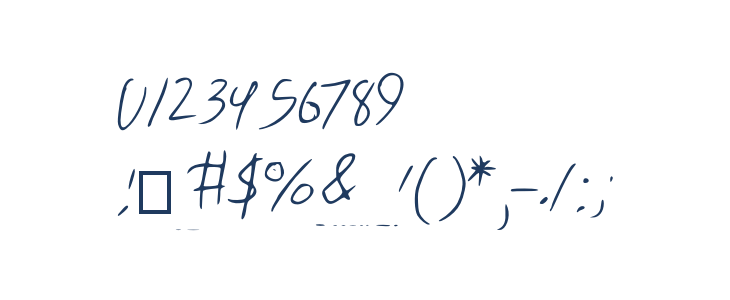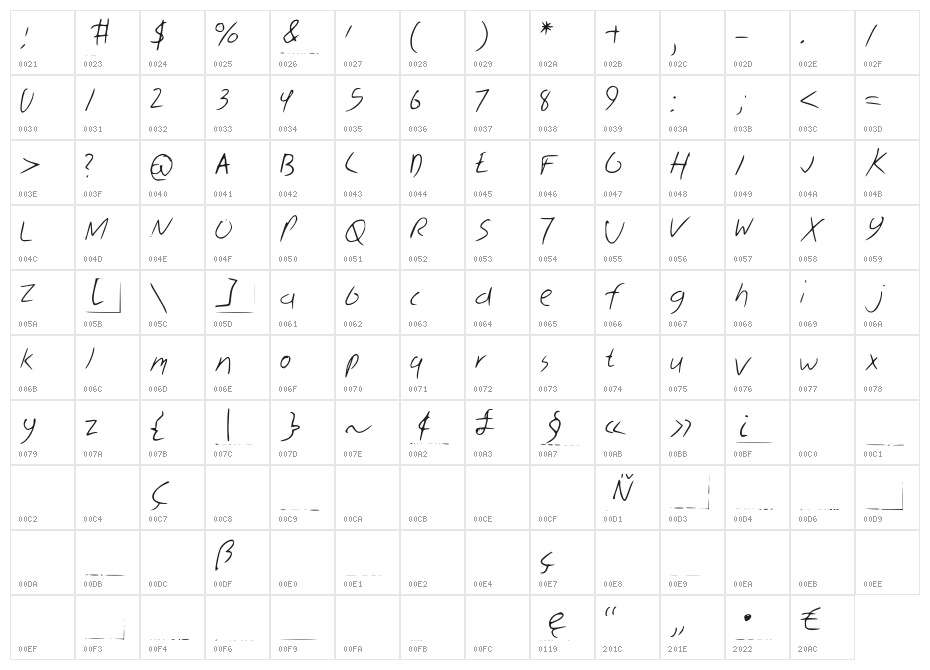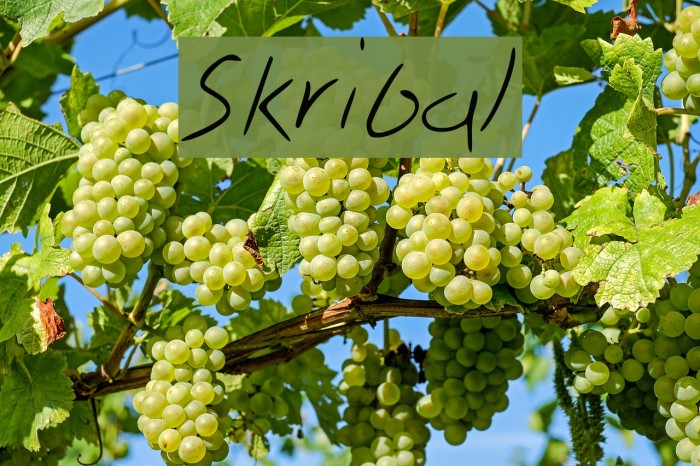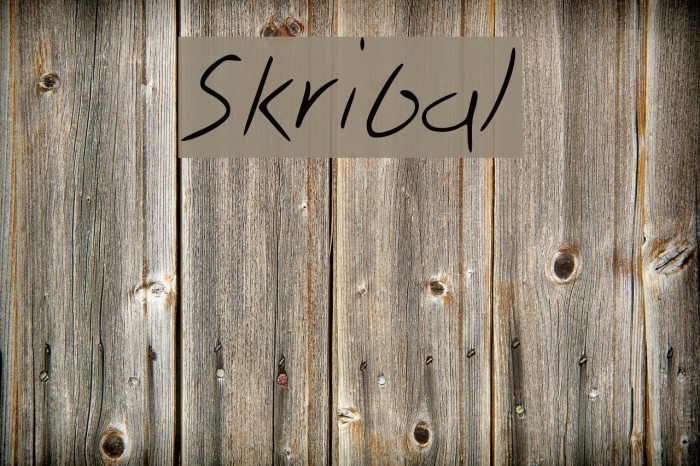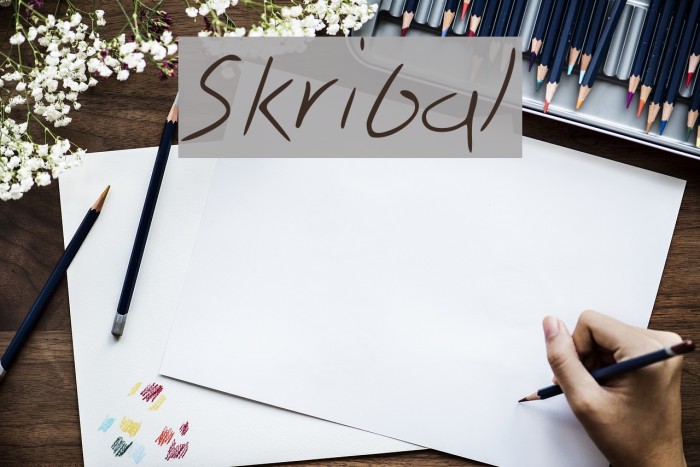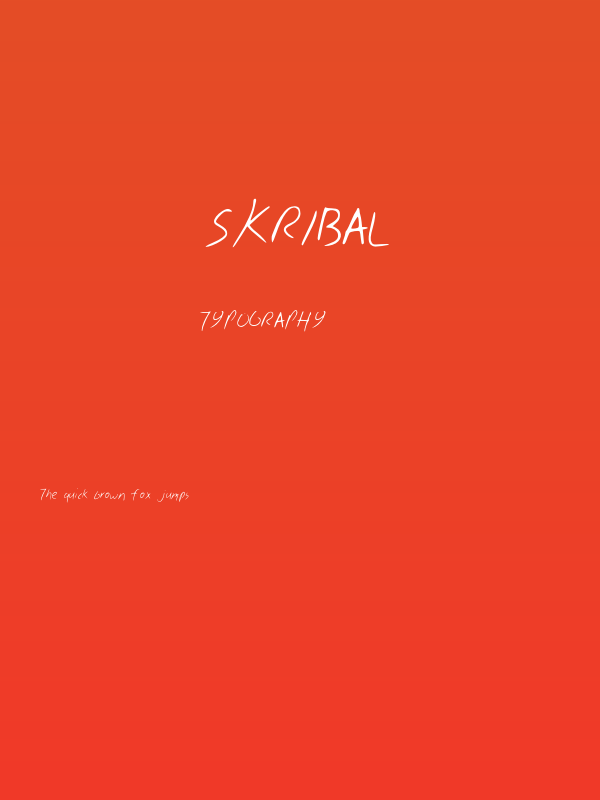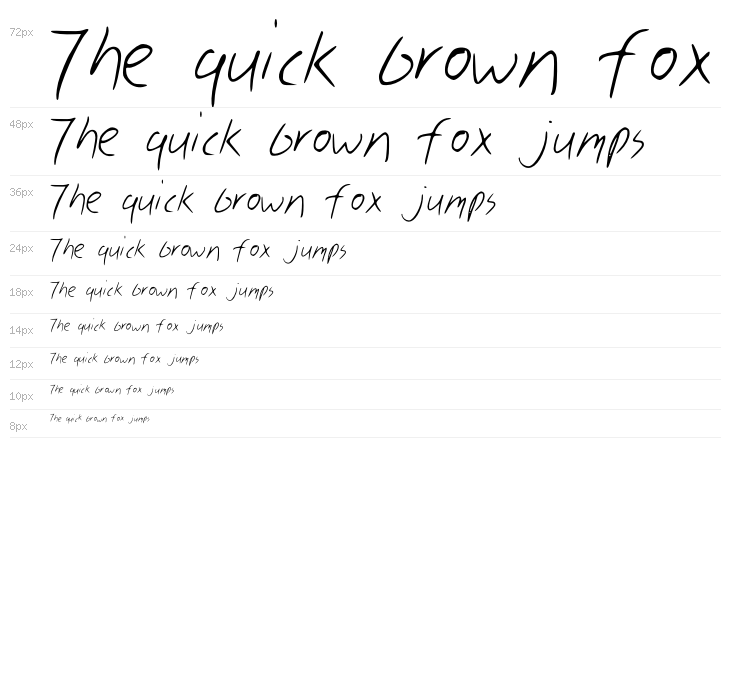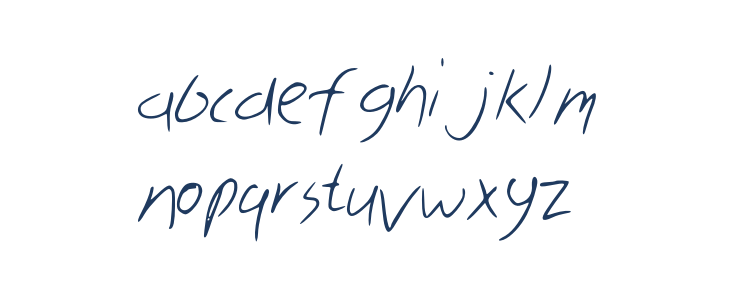
Skribal Font
Skribal Description
This font features a dynamic and expressive handwritten style, characterized by its fluid and slightly irregular strokes. The letters have a natural flow, with varying thickness that adds a personal touch to the text. The uppercase characters are bold and slightly angular, while the lowercase letters maintain a more rounded and softer appearance. Numbers and special characters are consistent with the overall style, offering a cohesive look. This font is ideal for projects that require a personal, informal, or artistic touch, such as invitations, greeting cards, or creative branding.
| Overall Style | Artistic |
| Use Case | Creative projects, personal notes, artistic branding. |
| Proposed Projects | Ideal for invitations, greeting cards, artistic branding, and personal projects. |